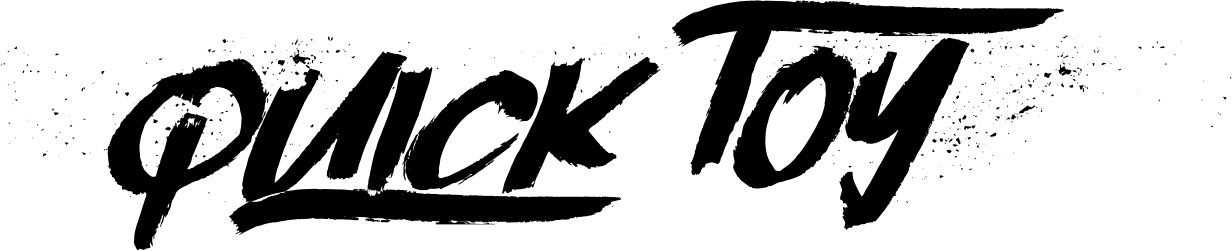
Quick Toy Font
Your projects will become much cooler by using this grunge . Quick Toy comes with dirty stains and paint splashes that give it a more authentic feel. You can use this all-caps font in banners, ads, thumbnails, or posters so that your designs would better favor the young.
This is handmade Font, Calligraphy style, Suitable for design, element design, wedding, event, t-shirt, logo, badges, sticker, and awesome work about summer.